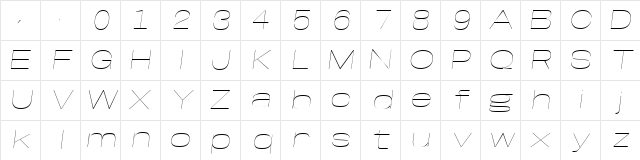
Base Neue Sup Exp Thin Obl Italic
Foundry: Power Type Foundry
Designer: Teguh Arief
Design Context for Base Neue Sup Exp Thin Obl
Base Neue Sup Exp Thin Obl is a composed and adaptable typeface that performs quietly and consistently across a wide range of design contexts. The slanted form adds forward momentum and visual energy. Its slender proportions lend an understated elegance to any composition.
Pro Tip: Use Base Neue Sup Exp Thin Obl for emphasis, pull quotes, and subheadings where its slanted energy can add rhythm to the layout.